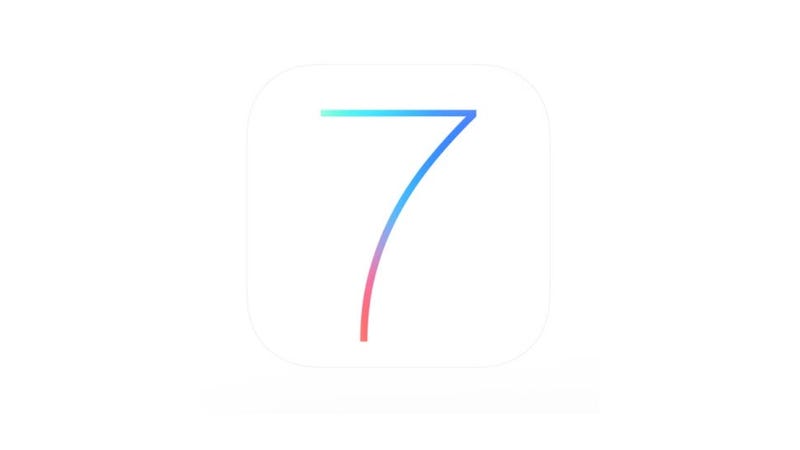
iOS 7’s switch to the Helvetica Neue Ultra Light typeface was one of the bigger design points for the new OS. But it came with a catch: It looked, in places, pretty bad on non-retina screens. The fix was simple enough. Just change it back to regular weight.
The newer version for both GIFs is the frame with the lighter blue background, instead of grey. The differences can be seen all over the OS, in Messages, Weather, and other first party Apple apps. Most of the text had been readable on non-retina iOS 7-compatible devices, but some things like badges and smaller alerts just looked bad. Still, this throws the weight of the entire OS off from where it had been, even if just slightly. [Twitter]